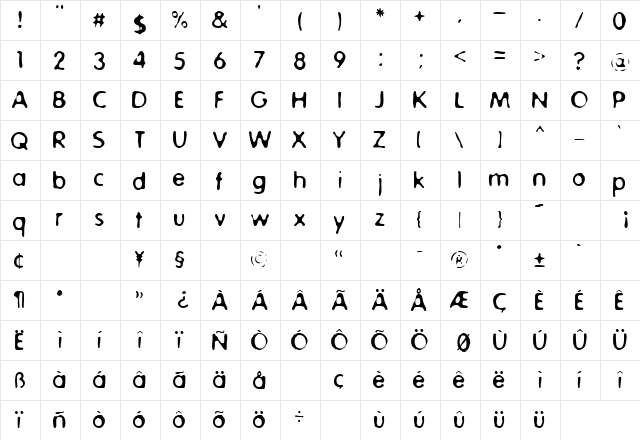
Onsoku Seinen Plane
Design Context for Onsoku Seinen Typeface
Onsoku Seinen takes a measured approach to typography — its balanced proportions and neutral character make it a reliable workhorse for both digital and print work.